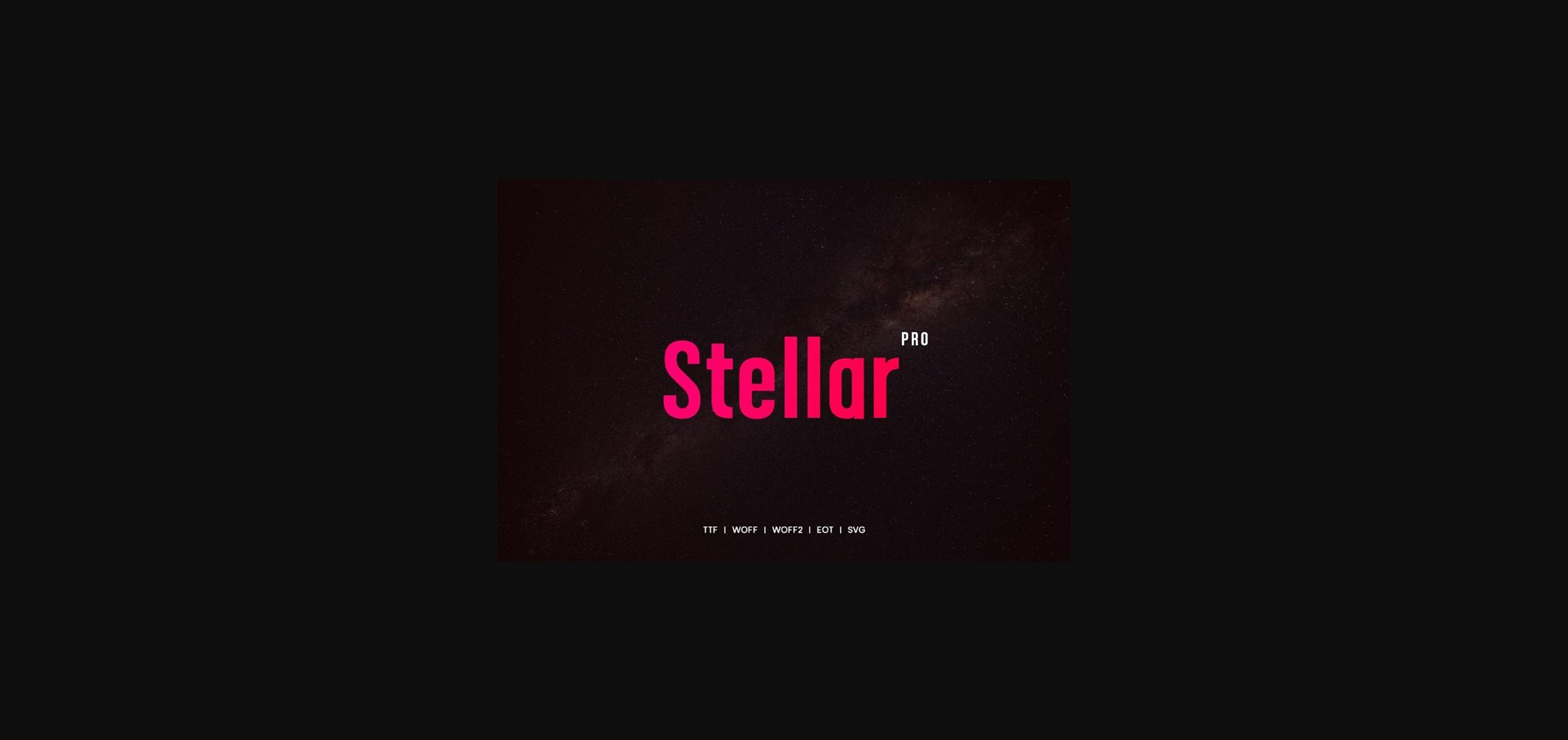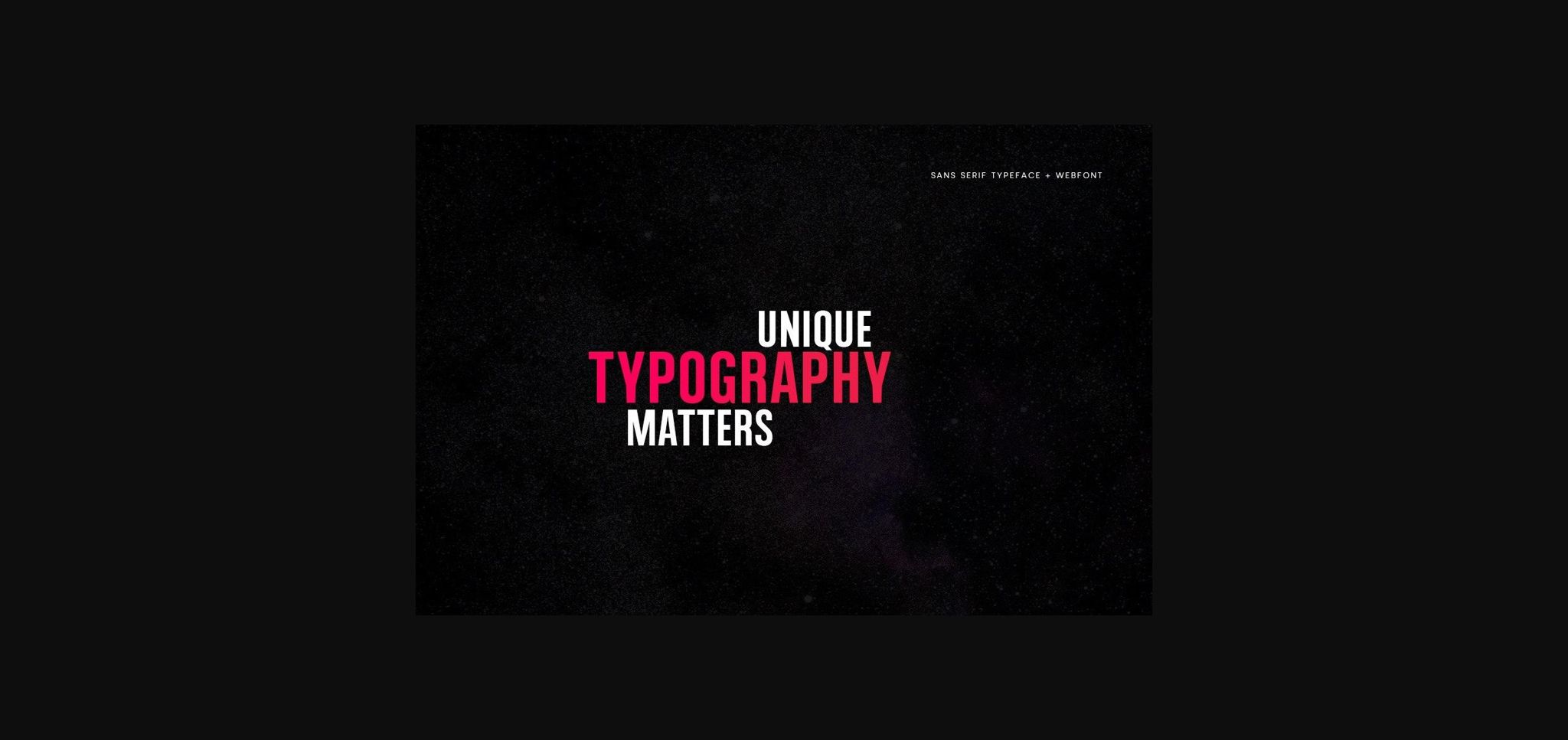
Stellar is a minimal and casual sans serif font. Suitable to a wide variety of designs, Stellar has the potential to become your favorite go-to font, no matter the occasion!